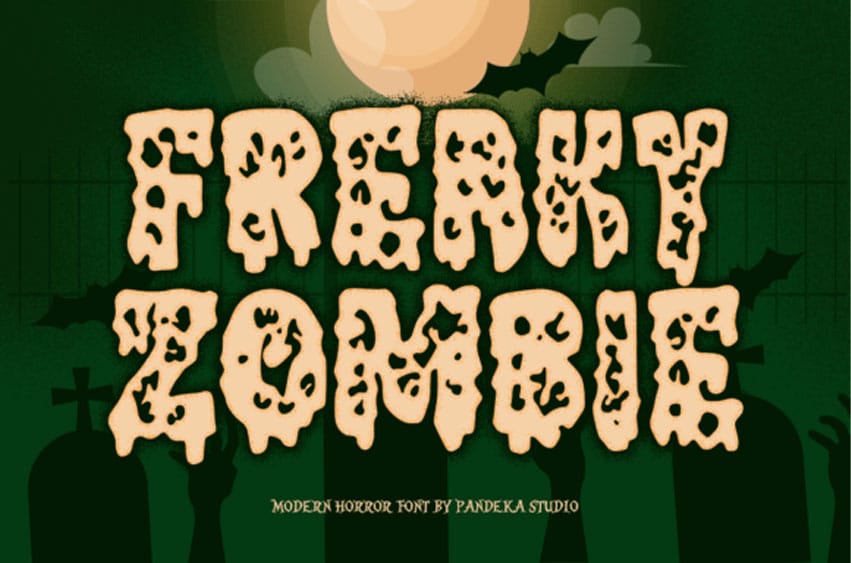
Freaky Zombie Font is a creepy yet fun Halloween display font inspired by gooey textures, zombie forms, and horror comics. It’s designed to bring playful fear and quirky energy to your creative projects. With bold dripping shapes and irregular details, every letter feels alive—like it just crawled out of a haunted graveyard.
Perfect for Halloween posters, party invitations, horror movie titles, candy packaging, spooky branding, and seasonal merchandise, Freaky Zombie strikes the perfect balance between scary and silly.